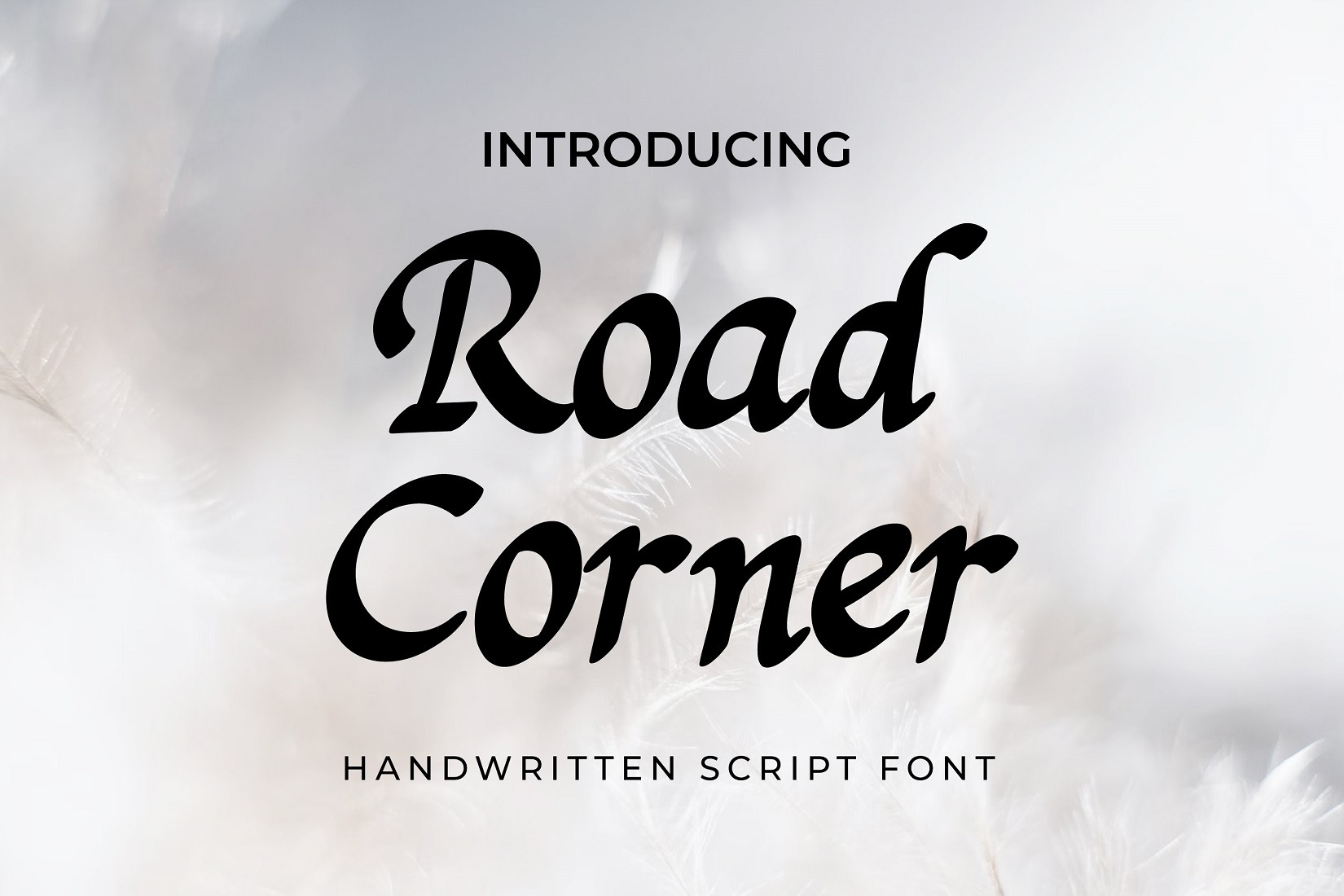
Road Corner Handwritten Script Font
Introducing Road Corner - Script Handwritten Font
Road Corner is a Script Handwritten font. Perfect for branding projects, logo, wedding designs, social media posts, advertisements, product packaging, product designs, label, photography, watermark, invitation, stationery and any projects that need handwriting taste.